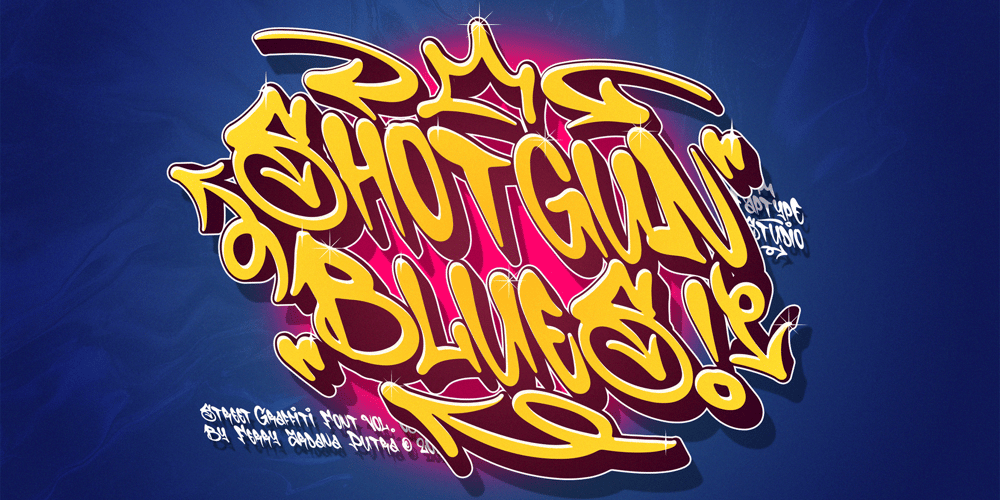
Shotgun Blues Graffiti
Shotgun Blues Graffiti font
Shotgun Blues Graffiti Font Family was designed by Ferry Ardana Putra and published by Ferry Ardana Putra. Shotgun Blues Graffiti contains 3 styles and family package options. Introducing “Shotgun Blues,” our bold and expressive freestyle graffiti font that unleashes the raw energy of the streets onto your creative canvas. Designed for those who crave a rebellious edge and an urban aesthetic, this font is more than a typeface—it’s a statement.”Shotgun Blues” embodies the spontaneous and dynamic nature of freestyle graffiti. Each character carries the DNA of street art, showcasing fluid strokes, sharp angles, and an unmistakable urban attitude. Whether you’re designing for hip-hop culture, streetwear, or any project that demands an unapologetically urban vibe, this font is your go-to choice.To amplify the rebellious spirit, “Shotgun Blues” comes with a set of additional graffiti ornaments. These elements allow you to embellish your text with tags, drips, and artistic accents, providing an authentic street art experience. Customize your designs with these graffiti-inspired ornaments for a truly unique and edgy aesthetic.Taking graffiti to the next dimension, “Shotgun Blues” introduces an extruded version. Transform your text into eye-catching 3D graffiti with depth and impact. This feature opens up a realm of possibilities for creating bold and immersive designs that pop off the page or screen.Whether you’re working on album covers, street art campaigns, or any project where attitude and style are paramount, “Shotgun Blues” is your tool for making a statement. Embrace the freestyle graffiti vibes, experiment with graffiti ornaments, and elevate your designs to the next level with the extruded version. Unleash the raw power of the streets with “Shotgun Blues” and let your creativity run wild in the urban playground.Versatile Applications: Album Covers Streetwear Apparel Graffiti Art Exhibitions Hip-Hop Posters and Flyers Skateboard Deck Graphics Street Art Murals Digital Marketing for Urban Brands Tattoo Designs Event Branding for Underground Shows Urban-themed Video Games Graffiti-inspired Branding Youth-Centric Social Media Graphics Shotgun Blues features: A full set of uppercase and lowercase Numbers and punctuation Multilingual language support PUA Encoded Characters OpenType Features Layered Style +399 Total Glyphs +168 Graffiti Swashes and Ornaments included!